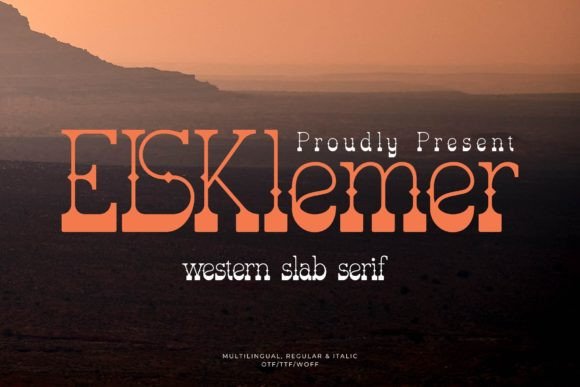
Elsklemer Font: The Ultimate Western Slab Serif for Your Design Projects
Are you looking for a font that can add a touch of Western charm to your design projects? Look no further than Elsklemer, a Western Slab Serif font that is perfect for a wide range of applications. In this article, we’ll take a closer look at Elsklemer and explore its features, benefits, and uses.
What is Elsklemer Font?
Elsklemer is a Western Slab Serif font that is designed to evoke the spirit of the American West. With its bold, rugged, and charming aesthetic, Elsklemer is perfect for designers who want to add a touch of Western flair to their projects. The font features a unique blend of classic and modern elements, making it suitable for a wide range of design applications.
Features of Elsklemer Font
Elsklemer font has several features that make it an excellent choice for designers. Some of its key features include:
- Western Slab Serif design: Elsklemer features a classic Western Slab Serif design that is perfect for adding a touch of rugged charm to your projects.
- Bold and rugged aesthetic: The font has a bold and rugged aesthetic that is perfect for making a statement.
- Unique blend of classic and modern elements: Elsklemer features a unique blend of classic and modern elements, making it suitable for a wide range of design applications.
- High-quality design: The font is designed with high-quality craftsmanship, ensuring that it looks great in any design project.
Benefits of Using Elsklemer Font
There are several benefits to using Elsklemer font in your design projects. Some of the benefits include:
- Versatility: Elsklemer is a versatile font that can be used in a wide range of design applications, from logos and branding projects to homeware designs and product packaging.
- Unique aesthetic: The font features a unique aesthetic that can help your designs stand out from the crowd.
- Easy to read: Despite its bold and rugged design, Elsklemer is easy to read, making it perfect for use in body text and headlines.
- High-quality design: The font is designed with high-quality craftsmanship, ensuring that it looks great in any design project.
Uses of Elsklemer Font
Elsklemer font is suitable for a wide range of design projects, including:
- Logos and branding projects: Elsklemer is perfect for logos and branding projects that require a bold and rugged aesthetic.
- Homeware designs: The font can be used in homeware designs, such as kitchenware, bedding, and towels.
- Product packaging: Elsklemer is suitable for product packaging, such as labels, cartons, and bottles.
- Mugs and quotes: The font can be used on mugs, quotes, and other promotional items.
- Posters and shopping bags: Elsklemer is perfect for posters, shopping bags, and other marketing materials.
- T-shirts and book covers: The font can be used on t-shirts, book covers, and other apparel.
- Name cards and invitation cards: Elsklemer is suitable for name cards, invitation cards, and other stationery items.
- Greeting cards and labels: The font can be used in greeting cards, labels, and other paper products.
- Photography and watermark: Elsklemer can be used as a watermark for photography and other digital images.
- Special events: The font is perfect for special events, such as weddings, festivals, and concerts.
Why Choose Elsklemer Font?
There are several reasons why you should choose Elsklemer font for your design projects. Some of the reasons include:
- Unique aesthetic: Elsklemer features a unique aesthetic that can help your designs stand out from the crowd.
- High-quality design: The font is designed with high-quality craftsmanship, ensuring that it looks great in any design project.
- Versatility: Elsklemer is a versatile font that can be used in a wide range of design applications.
- Easy to read: Despite its bold and rugged design, Elsklemer is easy to read, making it perfect for use in body text and headlines.
In conclusion, Elsklemer font is a Western Slab Serif font that is perfect for designers who want to add a touch of Western charm to their projects. With its bold, rugged, and charming aesthetic, Elsklemer is suitable for a wide range of design applications, from logos and branding projects to homeware designs and product packaging. Its unique blend of classic and modern elements, high-quality design, and versatility make it an excellent choice for designers.